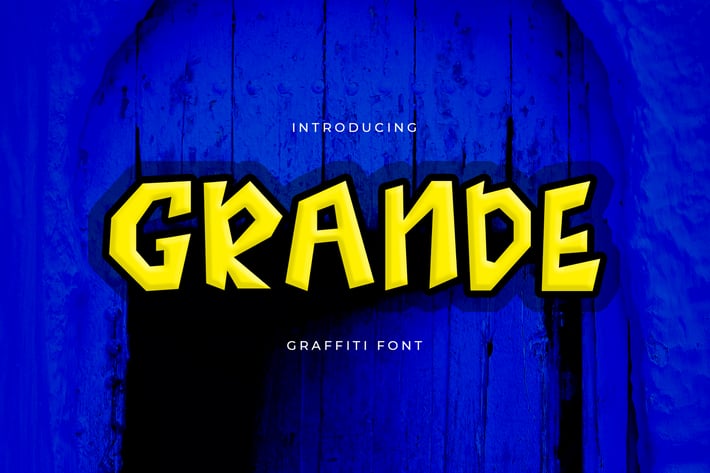
Grande - Graffiti Font
GRANDE
Grande is a Graffiti Font. Made with carefully and details. This font is perfect for making your set of apparel,
T-shirt, Hoodie, quotes, product packaging, brand, blog posts, greeting cards, labels, posters, wall art, etc.